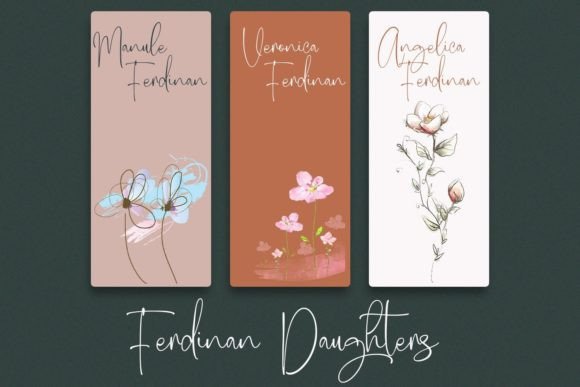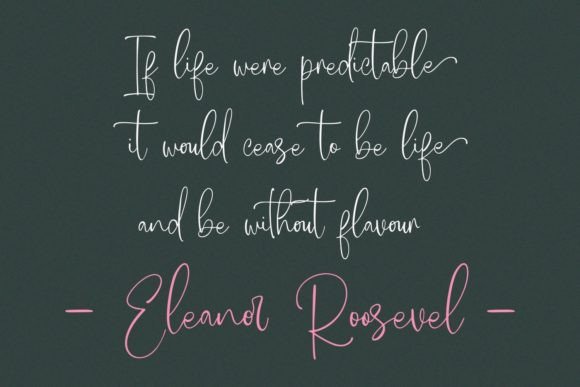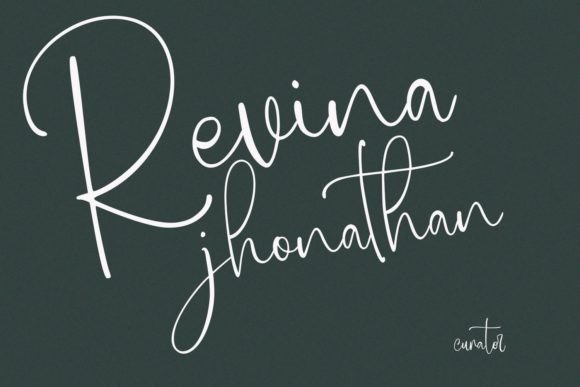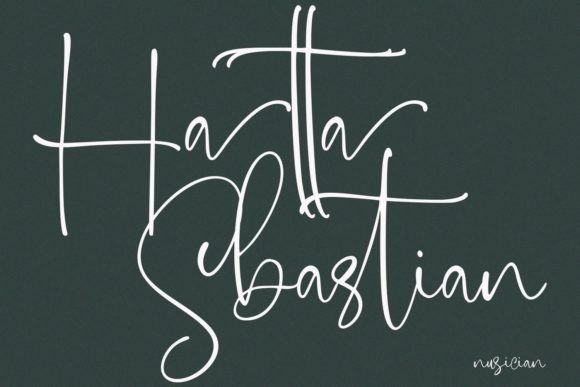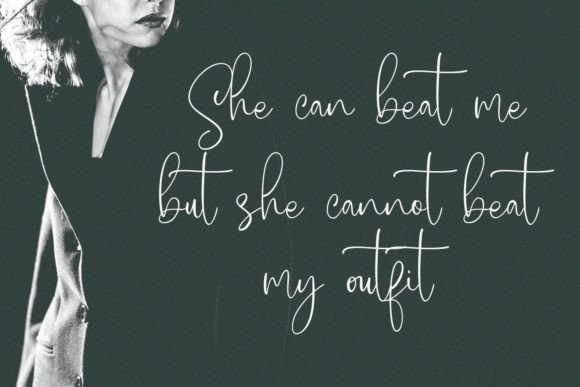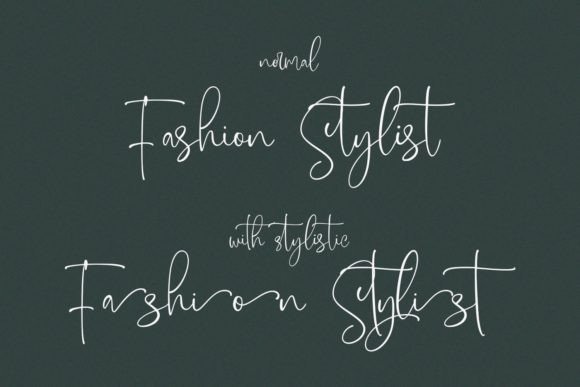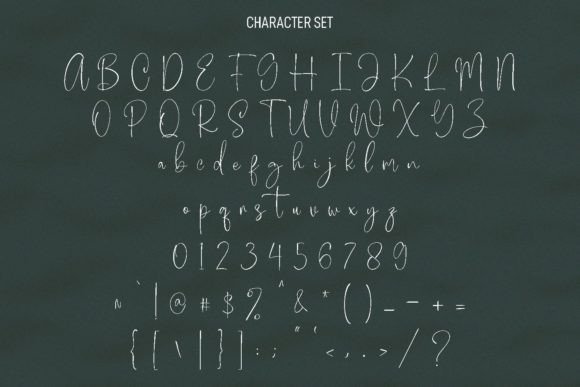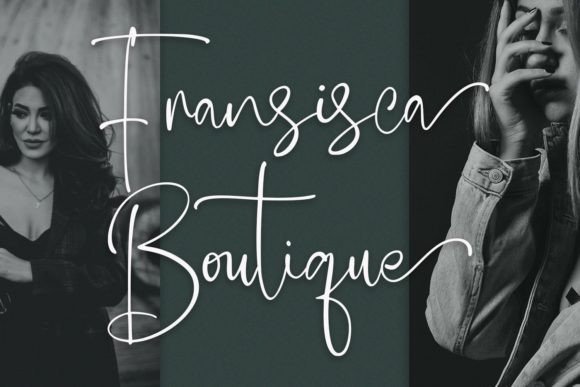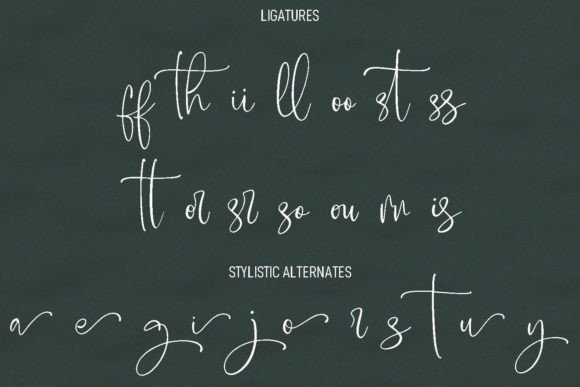
Sullivorty Font
About Sullivorty Font
“Sullivorty: Where Modern Elegance Meets Handwritten Charm
Introducing Sullivorty, a beautiful modern script font that seamlessly combines modern elegance with the timeless charm of handwritten lettering. With its graceful strokes and effortless flow, Sullivorty adds a touch of sophistication to any design. Imagine it gracing wedding invitations, bringing a sense of refined beauty to the celebration. Picture it on thank you cards, adding a heartfelt touch to your expressions of gratitude. Visualize it enhancing quotes, infusing them with an air of elegance and wisdom. Envision it on greeting cards, creating a warm and personal connection with the recipient. With Sullivorty, your designs come to life with a handwritten touch that resonates with genuine sincerity and style.
The allure of Sullivorty lies in its modern script, characterized by clean lines and a sense of contemporary elegance. Its graceful curves and precise detailing create a harmonious balance, making it a perfect choice for a wide range of applications. Whether you’re designing logos, crafting business cards, or enhancing various printed materials, Sullivorty adds a touch of sophistication that elevates your designs. Its versatility shines through, adapting seamlessly to diverse design contexts while retaining its distinctive character.
Sullivorty’s effortless charm makes it an invaluable asset for designers seeking a font that effortlessly combines modern elegance with handwritten charm. Its contemporary style and handwritten appeal strike a perfect balance, allowing it to complement both formal and casual designs. By incorporating Sullivorty into your projects, you infuse your creations with a sense of refined beauty and genuine sincerity. It becomes the ideal choice for those who value both contemporary aesthetics and the warmth of handwritten lettering, offering a versatile solution for a variety of design needs.
Moreover, Sullivorty is not just a font; it’s an embodiment of modern elegance and handwritten charm in typography. Its graceful strokes and precise detailing resonate with individuals who appreciate the beauty of contemporary design with a personal touch, making it a favorite among designers and enthusiasts seeking a font that effortlessly captures the essence of modern sophistication. Sullivorty becomes a symbol of your creativity, allowing you to create designs that not only catch the eye but also evoke a sense of genuine sincerity and modern elegance.
In a world where modern elegance meets handwritten charm in typography, Sullivorty helps you make a statement. It speaks the language of contemporary sophistication and heartfelt sincerity, resonating with those who appreciate the beauty of modern design elements combined with the warmth of handwritten lettering. Whether you’re designing wedding invitations, thank you cards, quotes, logos, or business cards, Sullivorty becomes your trusted companion, guiding you toward design excellence.
So, why settle for ordinary when you can embrace the extraordinary with Sullivorty? Let this beautiful modern script font be the canvas for your creative expressions, and watch as your projects come to life with modern elegance and handwritten charm. Let your ideas flow, and let Sullivorty be the brushstroke that paints your designs into visually captivating masterpieces, leaving a lasting impression on the hearts of your audience. Elevate your designs with Sullivorty, where modern elegance meets handwritten charm, and transform your creations into works of art that resonate with the authentic spirit of contemporary sophistication and genuine sincerity.”